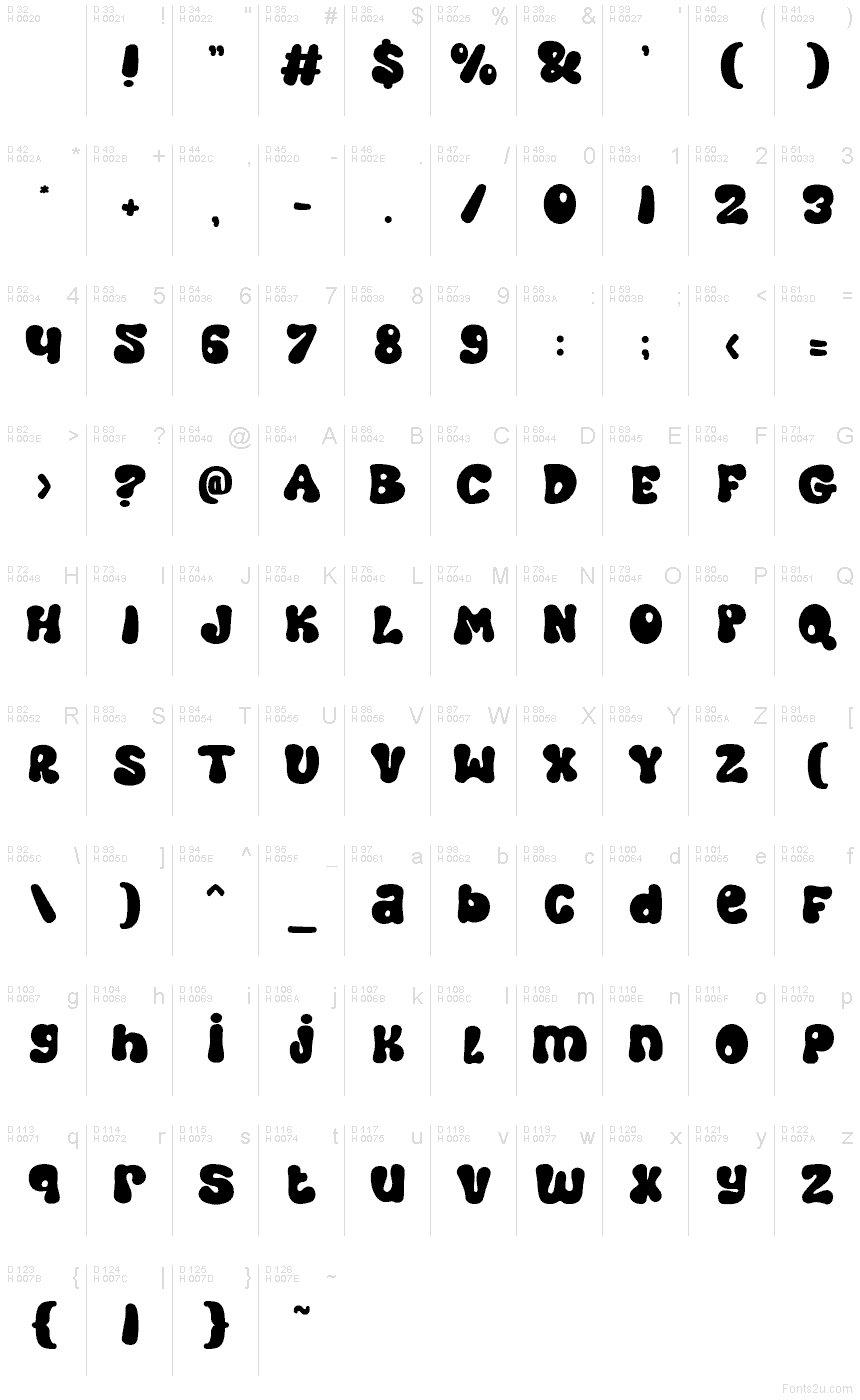
Cold Snowflake
Cold Snowflake font by PutraCetol Studio is a display typeface with a cartoon style and bold weight. Its rounded and bubbly appearance and friendly vibe give it a modern aesthetic with a whimsical tone.